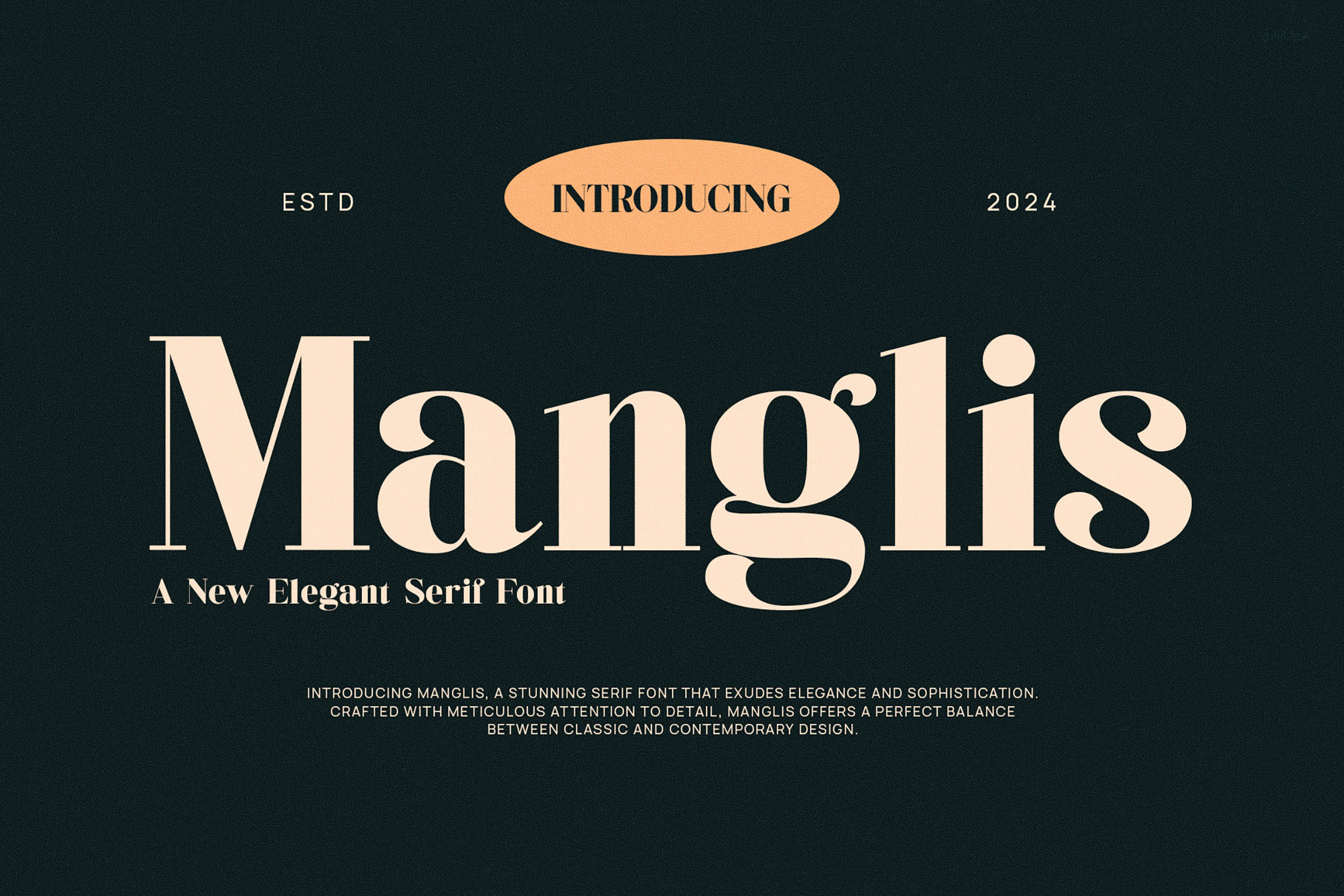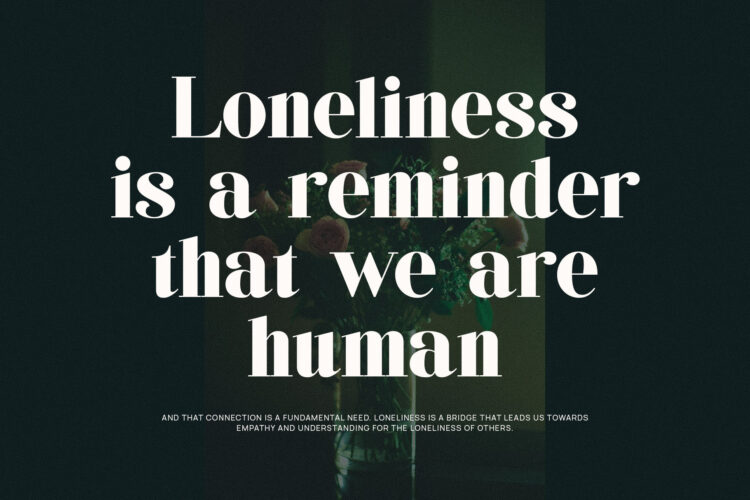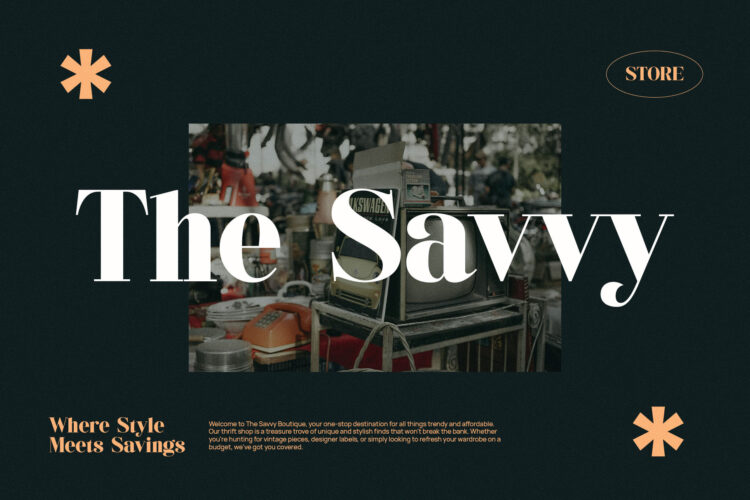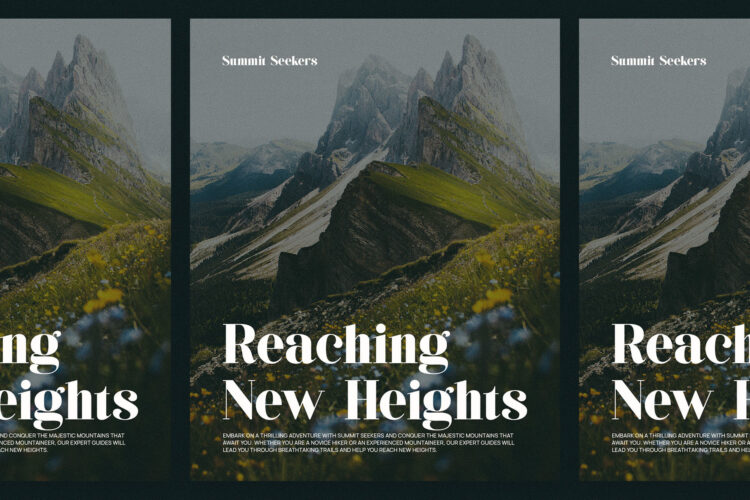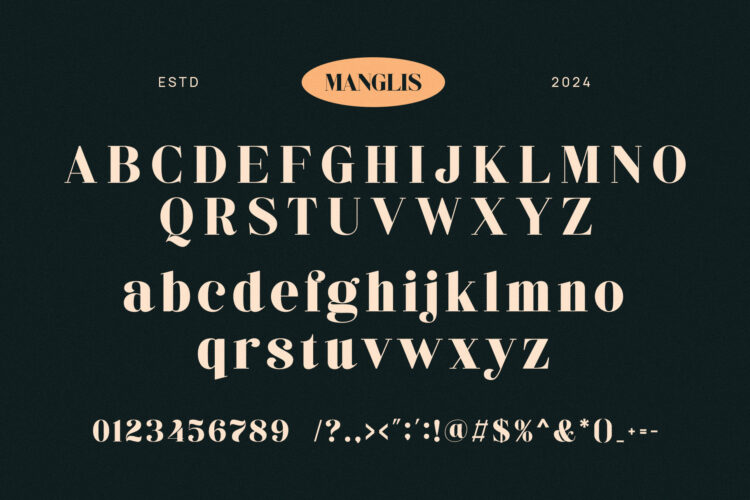
Introducing our new Manglis, modern serif font with elegant style this is perfect for branding, logos, invitation, magazines, product packaging and more.
Manglis – Classy & Stylish Serif